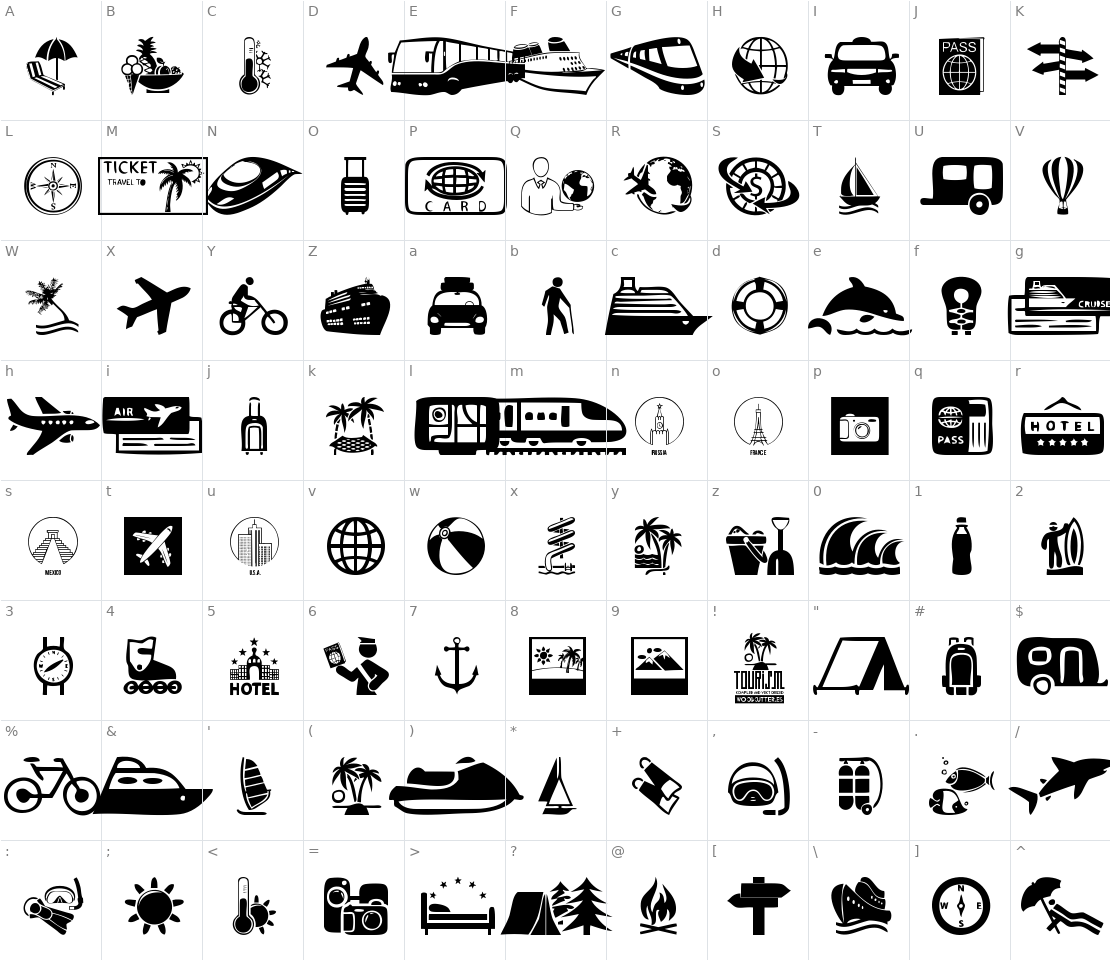
Tourism
Tourism is a decorative symbol font from Woodcutter, offering a set of travel-themed icons covering transport, landmarks, hotels, and more. Rather than letters, each key maps to a pictogram, making it useful for wayfinding graphics, travel brochures, maps, and tourism-related design work where you need quick, consistent iconography without building custom illustrations.